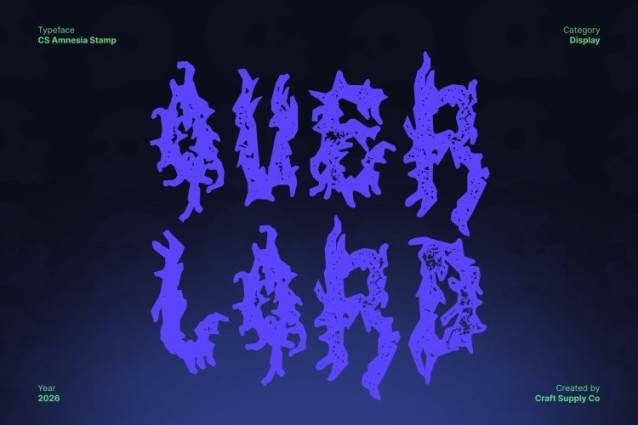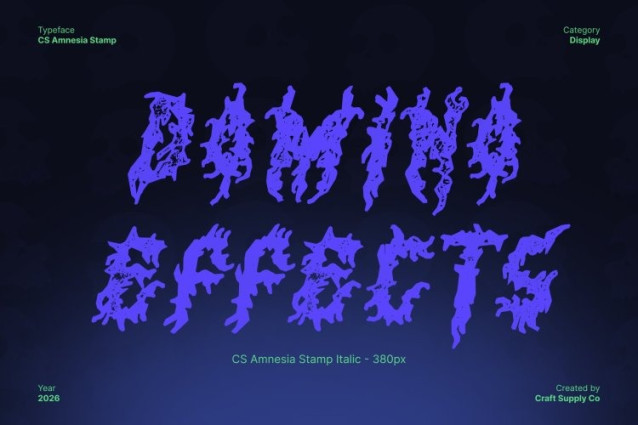
CS Amnesia Stamp Font
CS Amnesia Stamp Font This is a black metal display font forged from sharp, ornate letterforms and deep gothic influence. Inspired by occult symbolism, ancient scripts, and extreme metal aesthetics, this typeface radiates dark mysticism and ritualistic energy. Its aggressive angular structure and spiked contours create an ominous visual presence that feels raw, forbidden, and powerful.
Fragmented Letterforms with Decayed Stamp Texture
The letterforms are intentionally fragmented and distorted, featuring jagged edges, broken strokes, and irregular gaps that evoke decay and erosion. A distressed stamp texture enhances the ruined appearance, as if the letters were carved, burned, or imprinted through time. This weathered effect gives the font a sense of age, and chaos perfectly aligned with black metal’s uncompromising spirit.
Ornate Details with Chaotic, Ritualistic Character
Despite its aggressive form, this font retains intricate ornamental details that add depth and complexity. These subtle flourishes and thorn-like extensions bring a ritualistic, almost ceremonial quality, balancing chaos with dark craftsmanship. The result is a font that feels both brutal.
Perfect for Black Metal, Gothic, and Occult Visuals
This is ideal for black metal band logos, album covers, merchandise, concert posters, and underground branding. It also works powerfully for gothic, occult, horror, and dark fantasy projects that demand intensity, mystery, and rebellion.